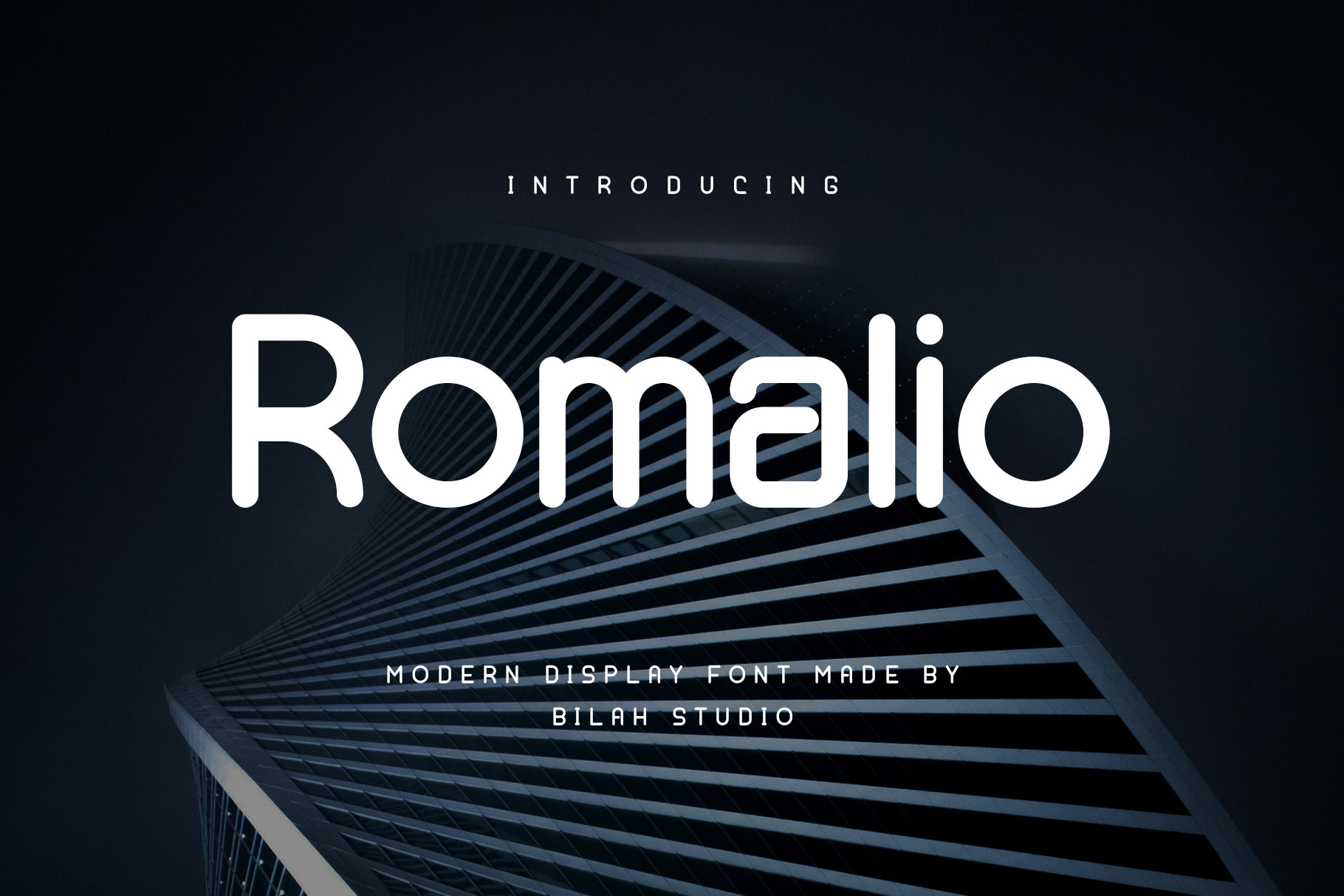
Romalio - Modern display Font
Romalio is a simple, straightforward, and unique font with a clean and elegant feel. Its distinctive shapes are designed for display fonts, ensuring readability for contemporary use. Romalio comes with alternates, ligatures, and multilingual support.
Romlio is the perfect choice for any creative endeavor, including chic lifestyle designs, such as logos, advertisements, stationery, branding projects, displays and magazines, invitations, corporate branding, product design, labels, business projects, and many other projects with a simple and formal touch.